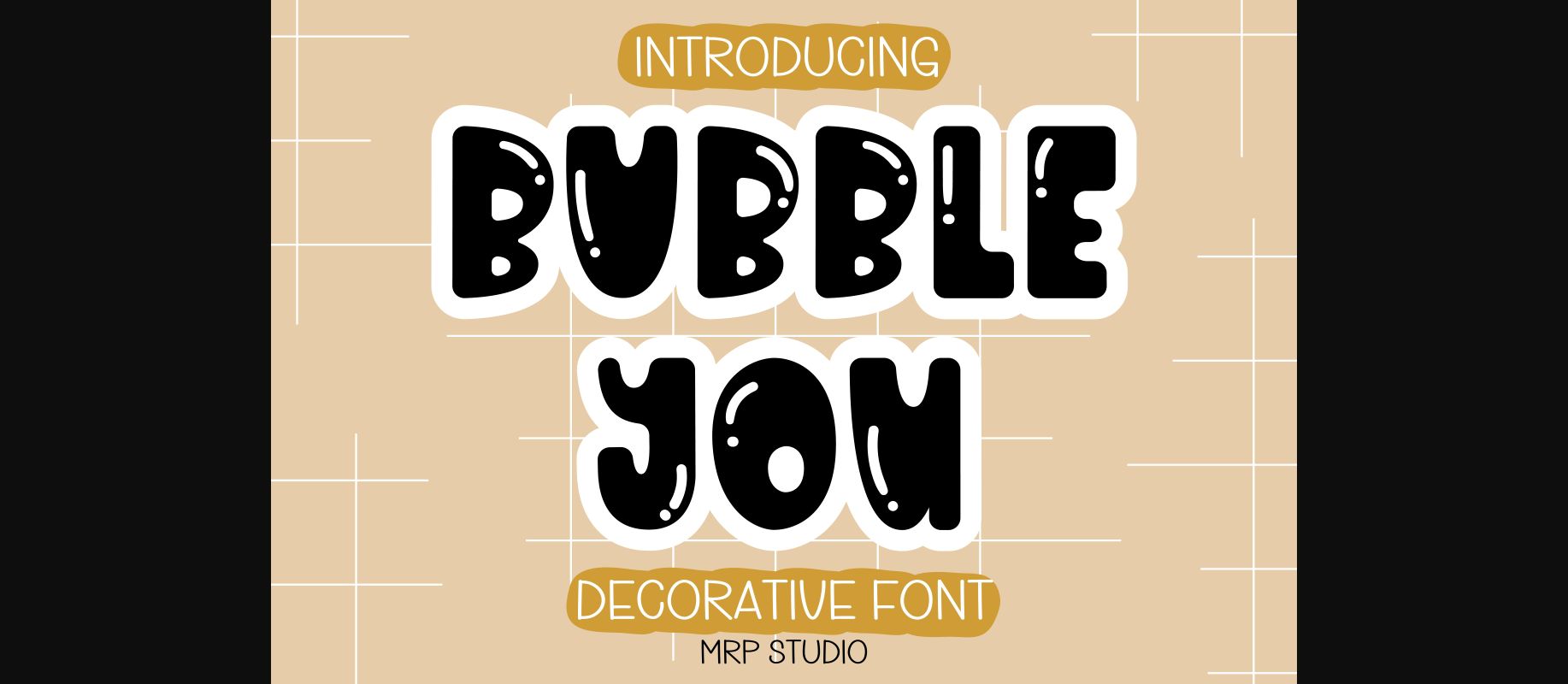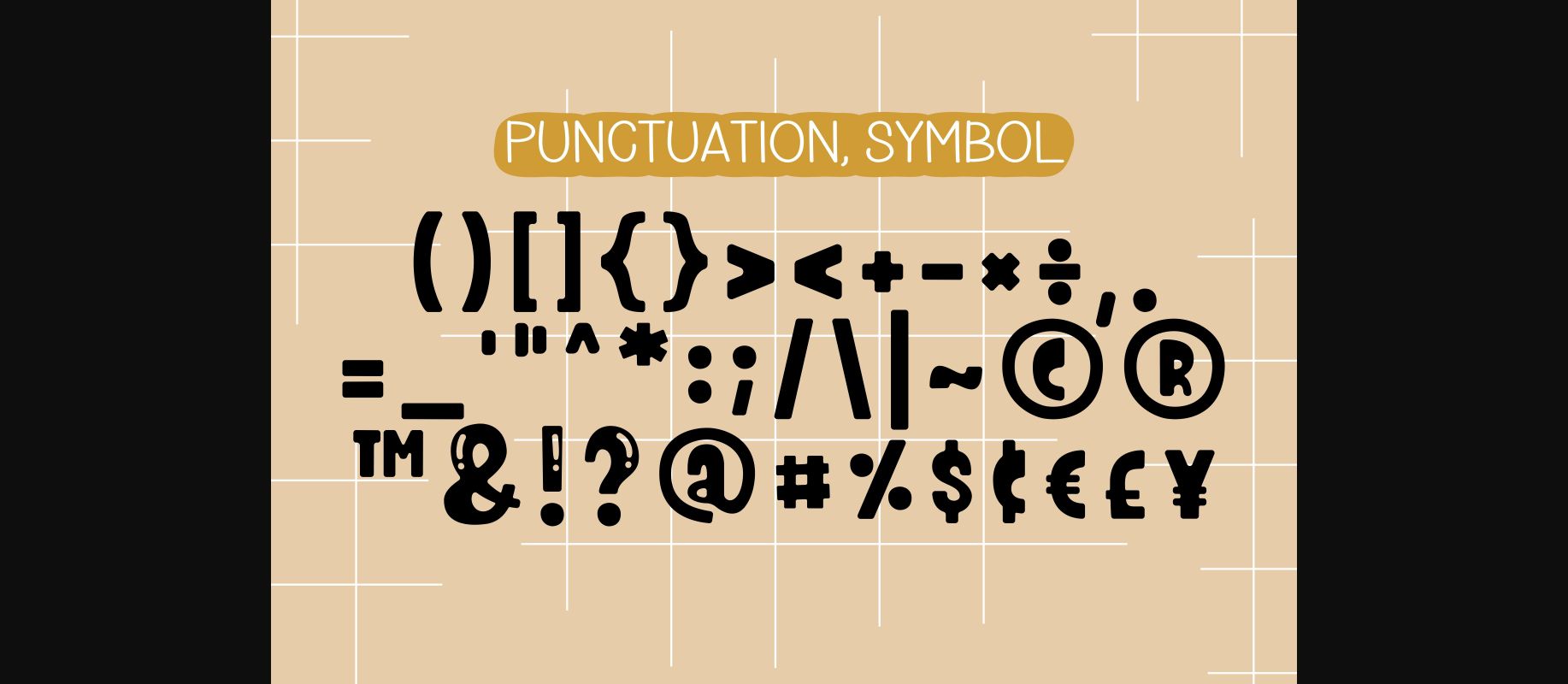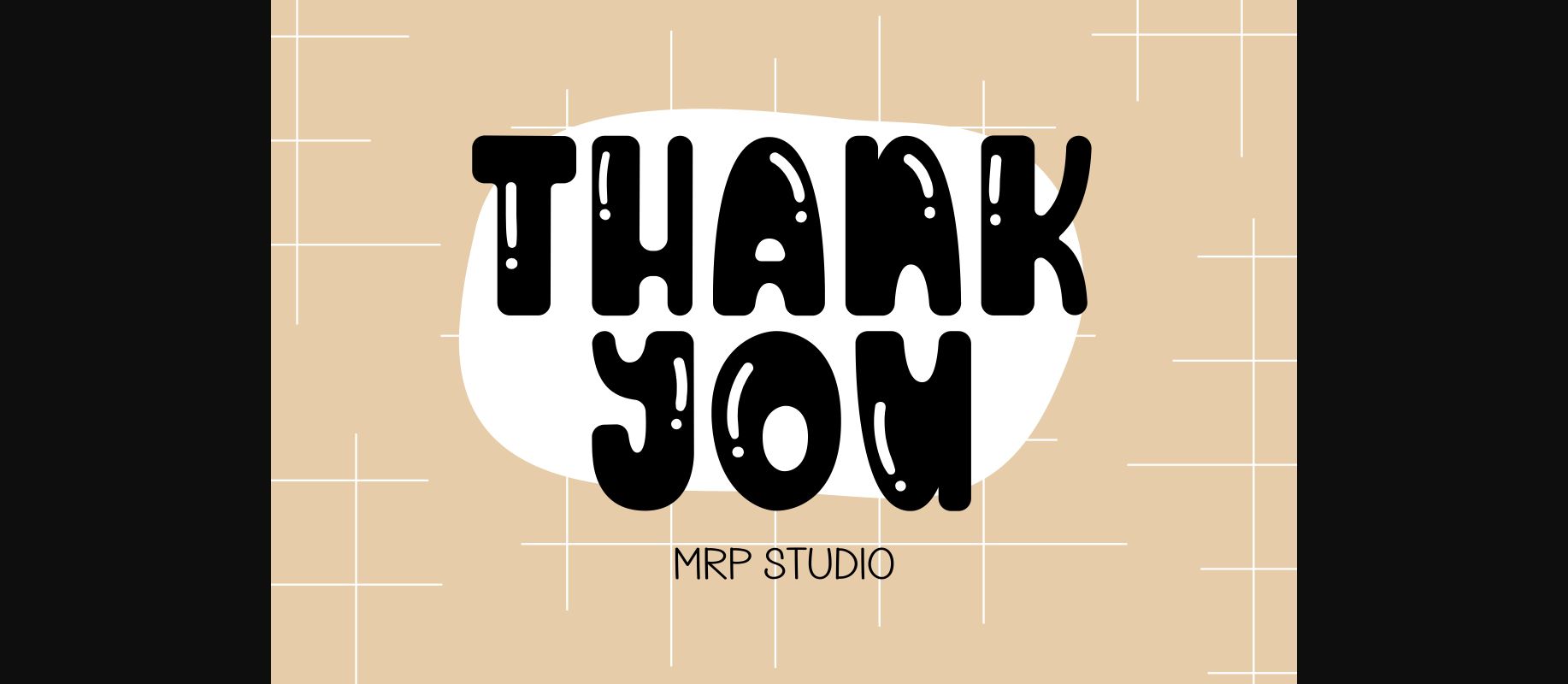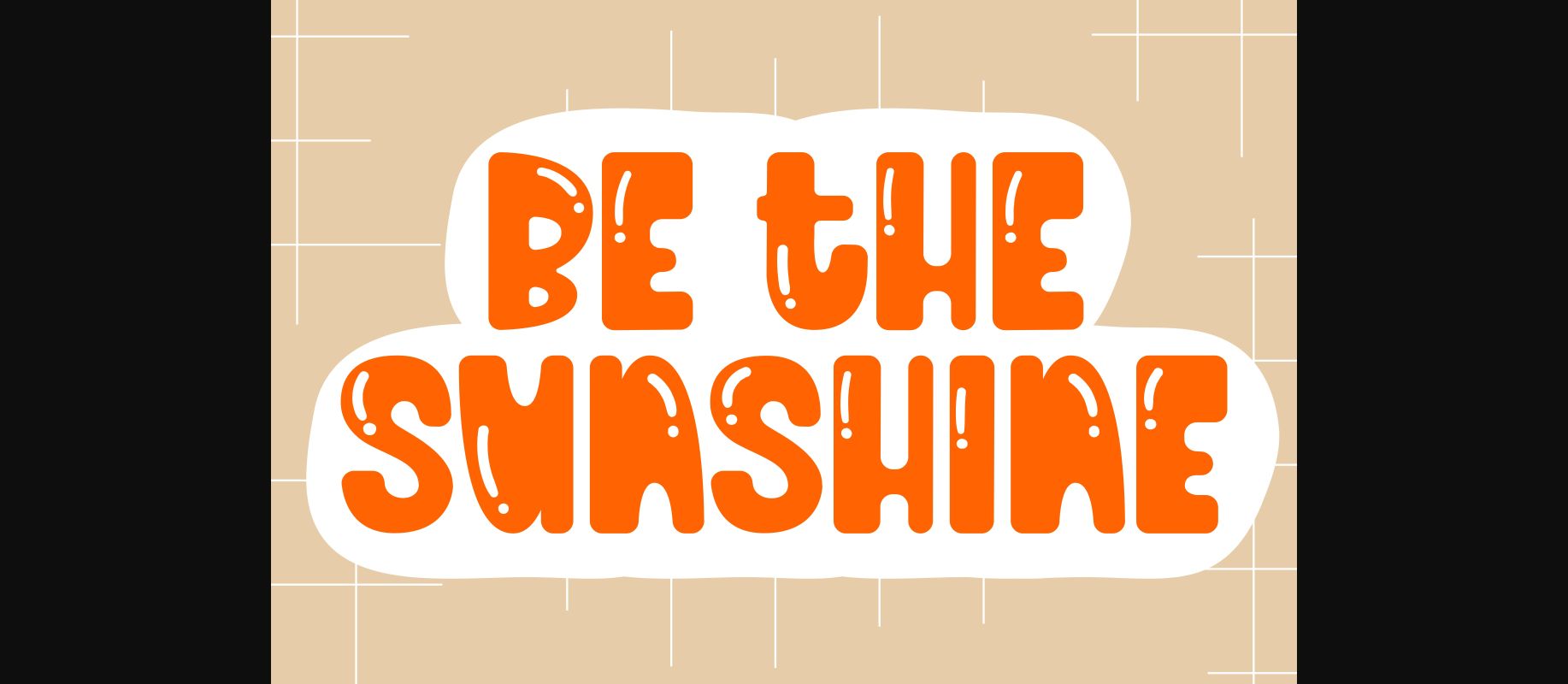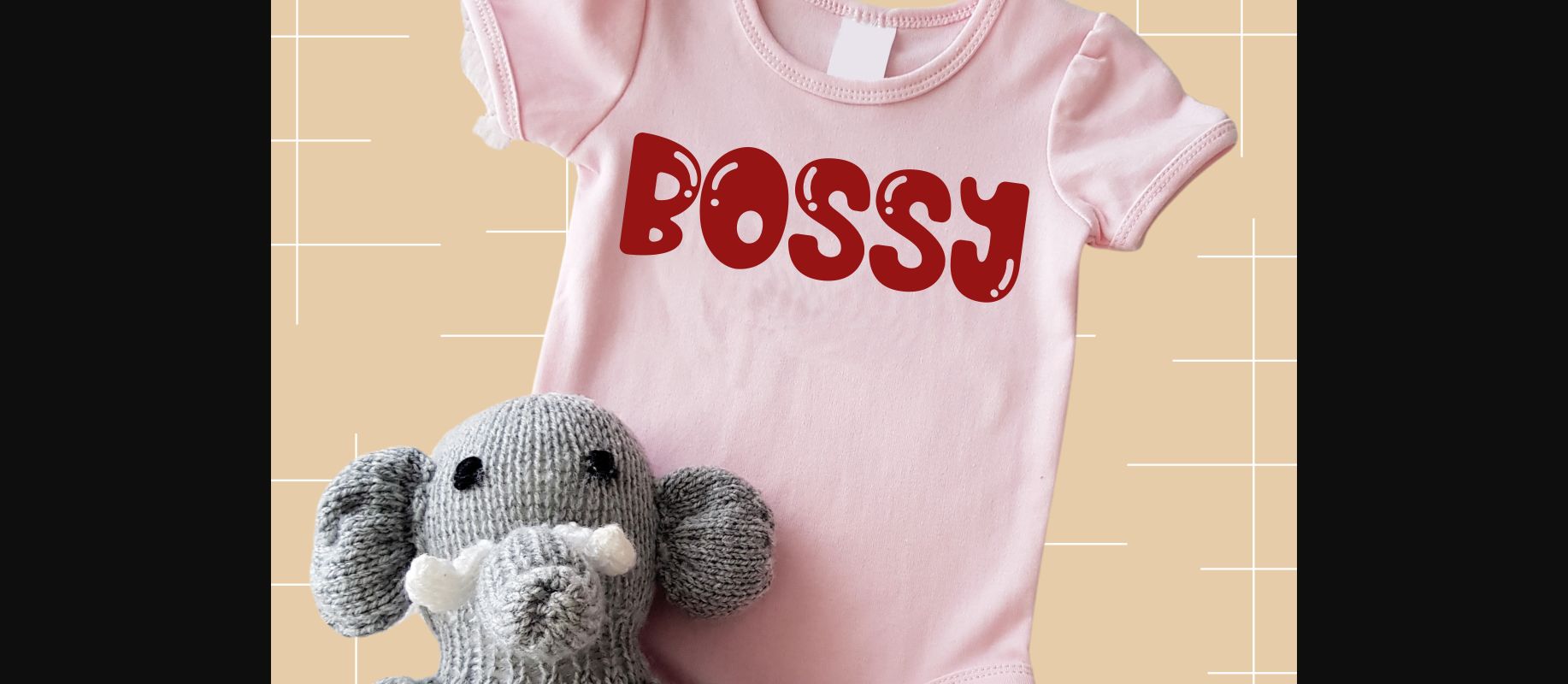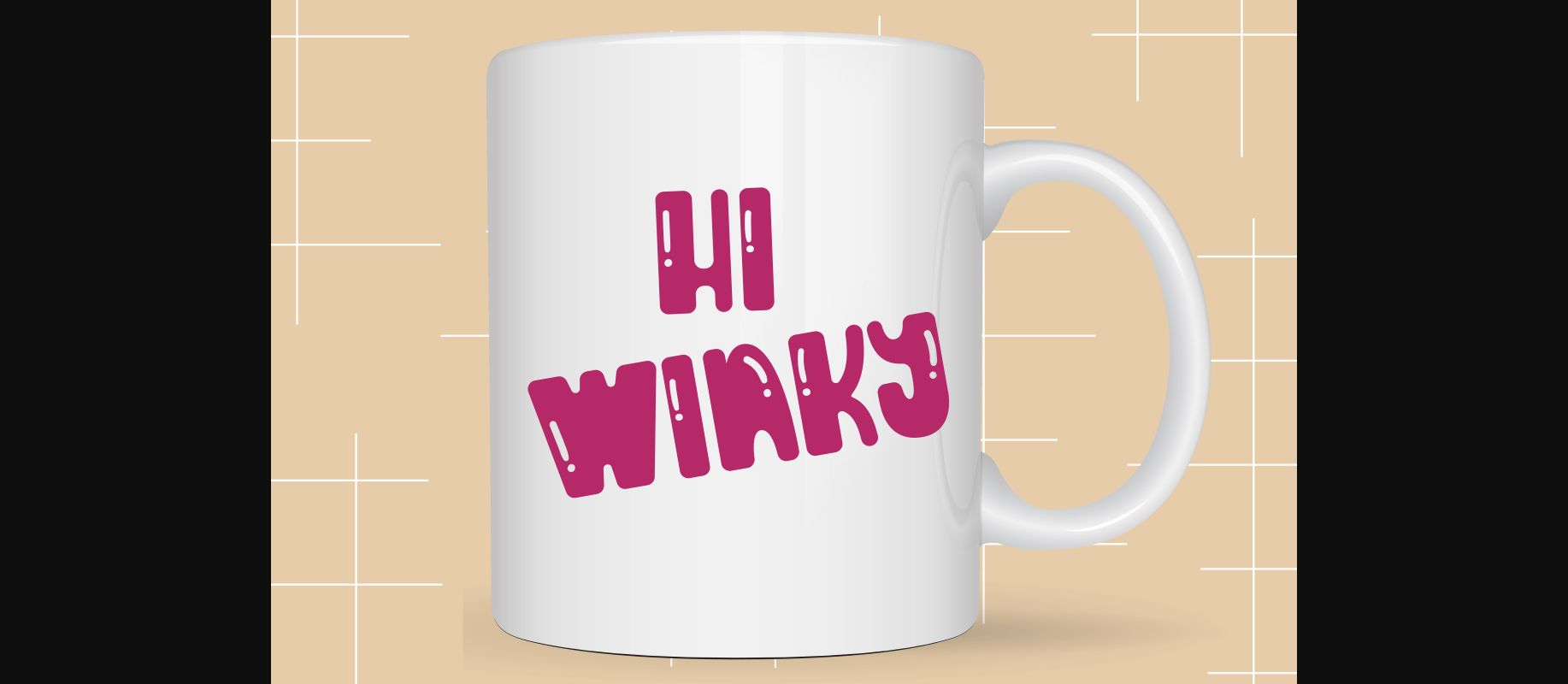
Bubble You Font
About Bubble You Font
Bubble You is designed in a cute and adorable decorative font style. It would be awesome to your lovely Project and also your child-related project such as back to school, birthday party decoration and much more to any topic which need bright and fun touch. Let’s try it and add it to your creative ideas and notice how it makes them stand out!